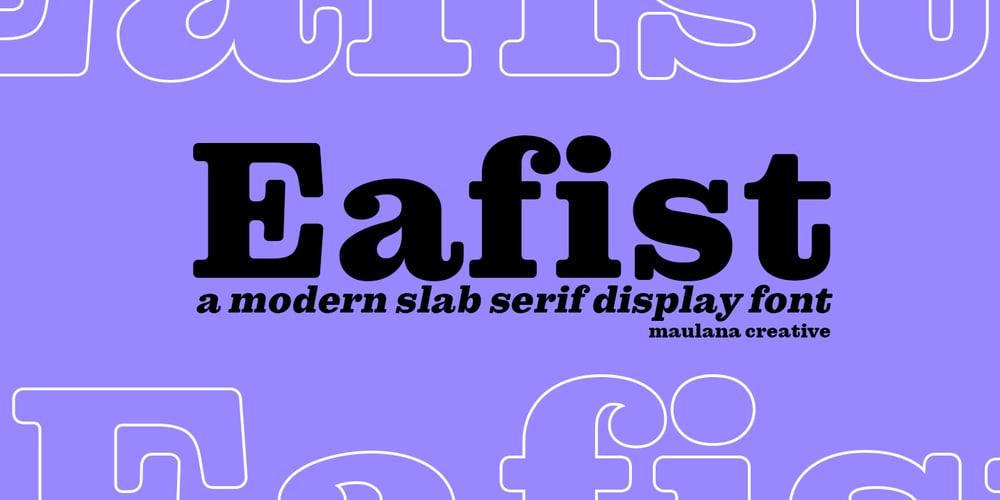
MC Eafist Font Family was designed by Gilang Maulana and published by Maulana Creative. MC Eafist contains 2 styles and family package options. Eafist is a retro slab serif font. With bold stroke, fun character with a bit of ligatures and alternates. To give you an extra creative work. Eafist font support multilingual more than 100+ language. This font is good for logo design, Social media, Movie Titles, Books Titles, a short text even a long text letter and good for your secondary text font with sans or serif. Make a stunning work with Eafist font. Cheers, Maulana Creative